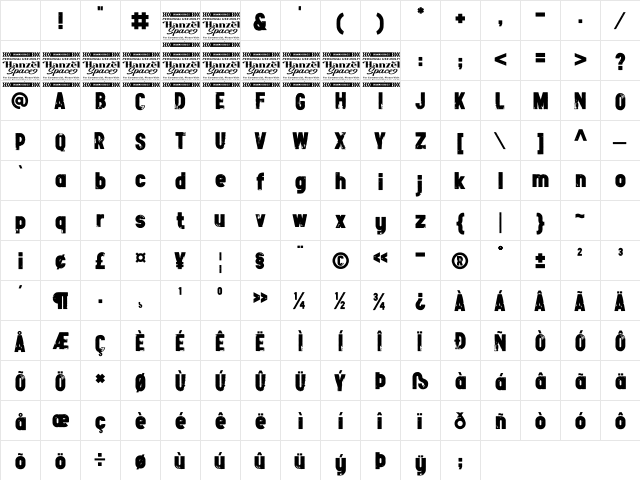
Complete Double Tracker Regular glyph index. Displaying only characters natively supported by Double Tracker Regular font.
Double Tracker is a composed and adaptable typeface that performs quietly and consistently across a wide range of design contexts.